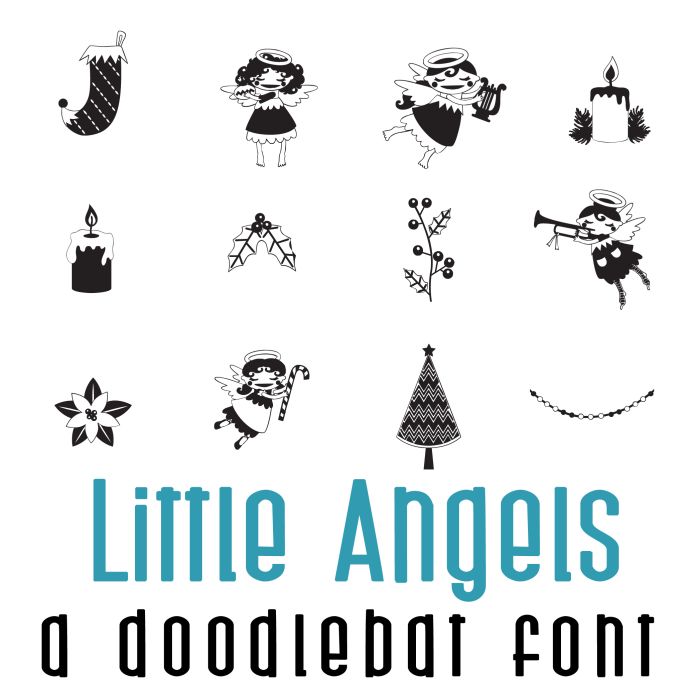
This fun doodle style doodlebat font features 26 adorable Christmas angels. Perfect for cards, crafts, gifts, decor, scrap book pages, planner stickers and more!